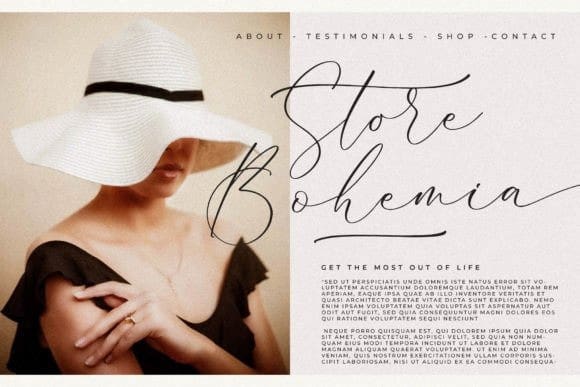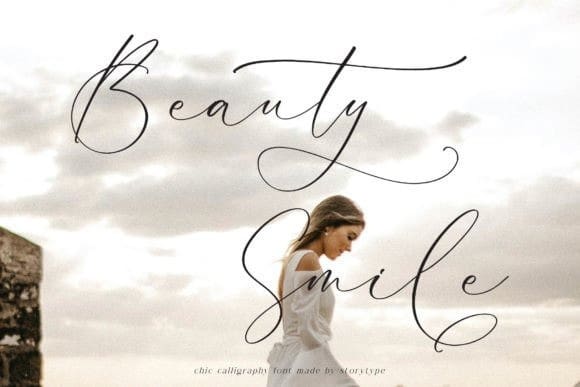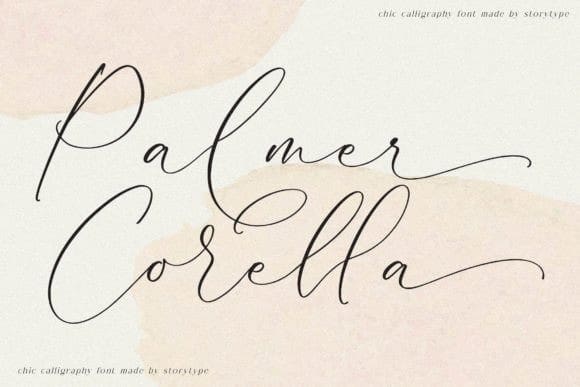
Palmer Corella Font
Palmer Corella Font – Chic Calligraphy Font , created by Storytype, A luxury script that has own unique style & modern look. This typeface is perfect for an elegant & luxury logo, book or movie title design, fashion brand, magazine, clothes, lettering, quotes, and so much more.